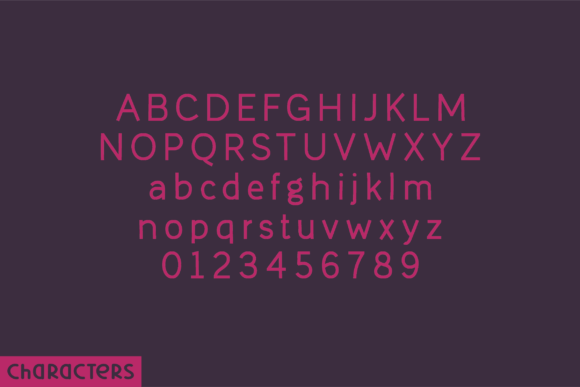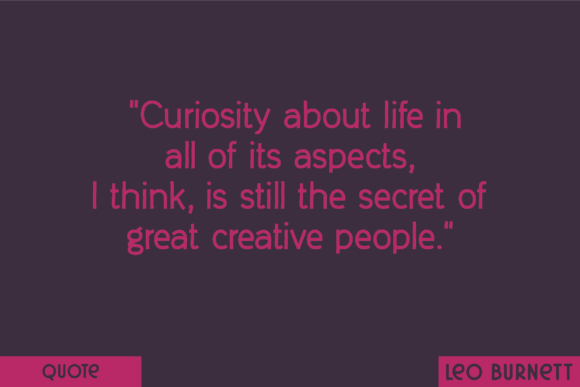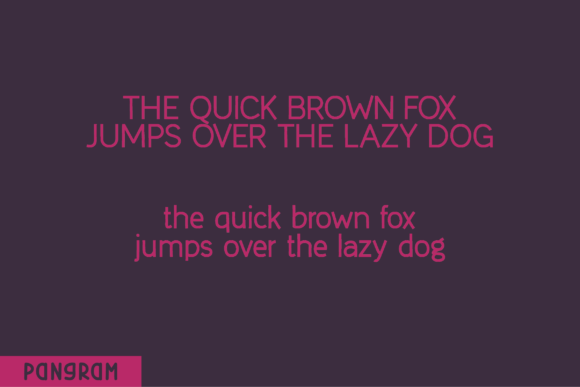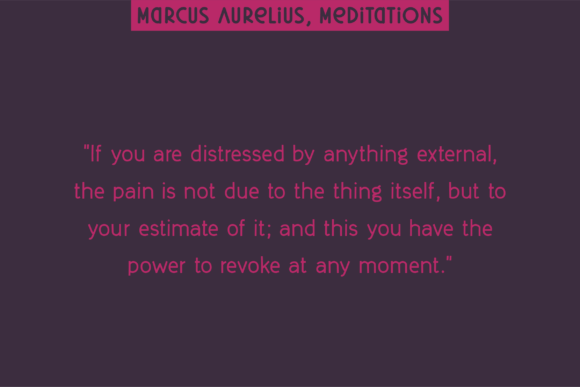
Introduction to Limozelle Font
Make your message feel personal and punchy with Limozelle.
Moving into a medium-weight territory, this font offers a more robust presence while maintaining a playful, geometric structure Its slightly condensed forms and rounded terminals make it highly legible even in vibrant, high-contrast color palettes.
Limozelle Font offers exceptional quality and versatility, making it a valuable addition to your design toolkit. Whether you’re creating for personal projects or commercial use, Limozelle Font delivers professional results.